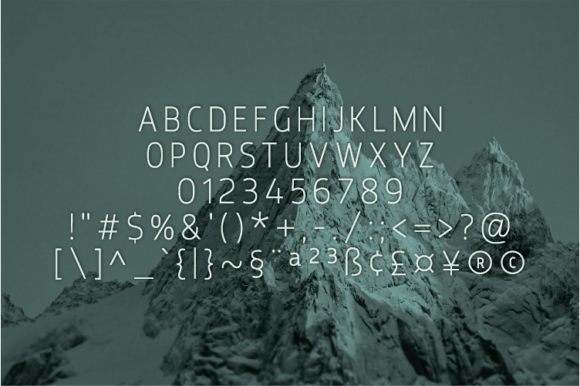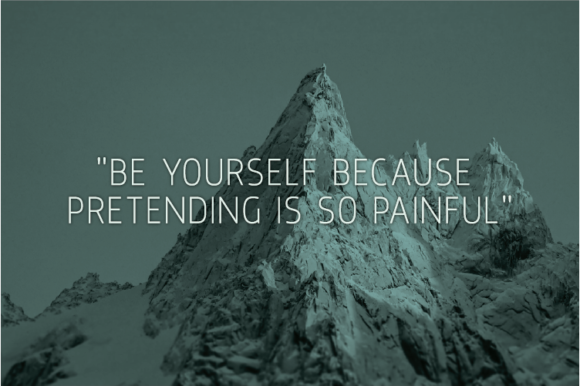
Introduction to Reulvone Font Font
Fonts play a crucial role in design, and the Reulvone Font font is a typeface that brings both character and versatility to any project. Whether you’re working on a branding project, a website, or a print design, the Reulvone Font font offers a unique style that can elevate your work.
| 📌 Font Name | Reulvone Font |
| 👤 Author | Huntype |
Reulvone is a modern and clean sans serif font that is versatile and looks great in just about any context.
With smooth and clean lines, and just a touch of contrast, Reulvone works beautifully for logos, branding, web headings and much more .
Key Features of Reulvone Font Font
Why Choose Reulvone Font Font?
The Reulvone Font font is more than just a typeface – it’s a design tool that helps you communicate your message with style and clarity. Its unique character set and versatile design make it suitable for a wide range of applications, from elegant invitations to bold headlines.
With its carefully crafted letterforms and balanced proportions, the Reulvone Font font ensures readability and visual appeal across all mediums.
What makes Reulvone Font font special?
The Reulvone Font font stands out with its unique design, exceptional readability, and versatility across various design applications.